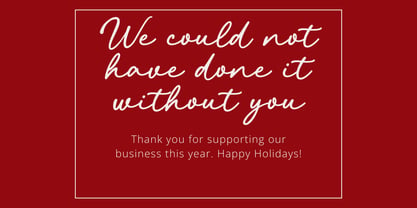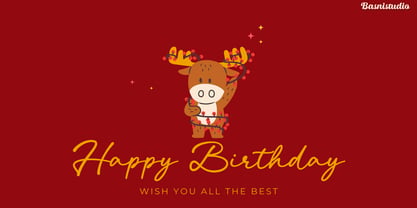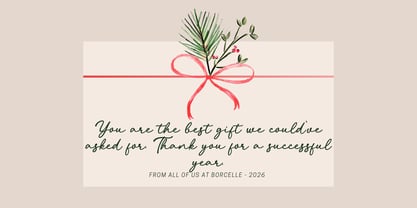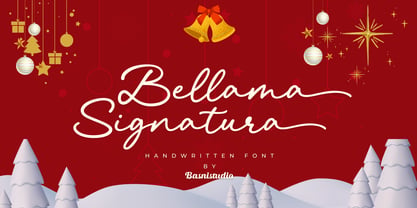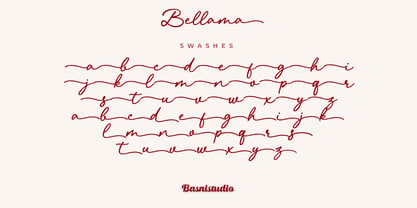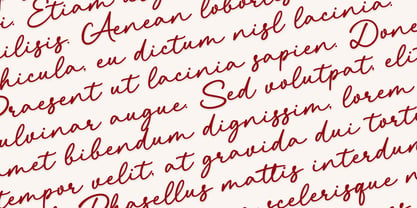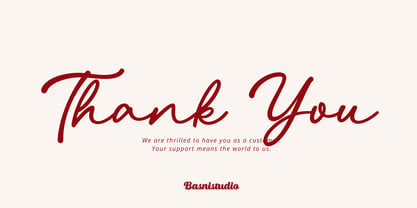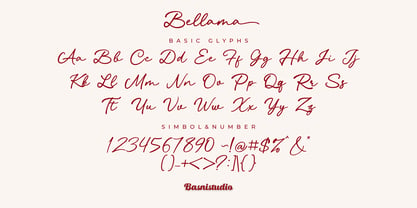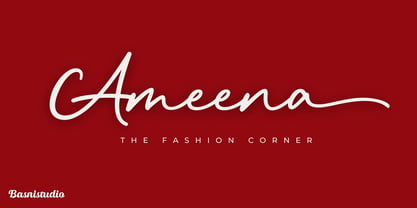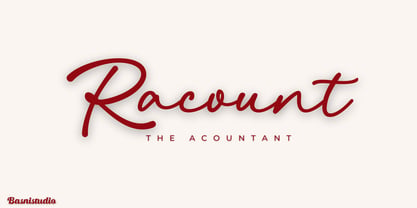
Bellama Signature
The Bellama Signature Font Family was designed by Bery Arisandi and published by Basnistudio. Bellama Signature contains 1 styles. More about this family
Bellama a Signature Font that adds a elegant, versatile touch to everything from branding and social media to invitations and packaging. Elegant & Versatile – Perfect for logos, quotes, greeting cards, and more Authentic Handwritten Feel – Created with real pen strokes for a natural look Easy to Use – Works seamlessly with all major design programs Whether you’re building a powerful brand identity or crafting a standout logo, Bellama a Signature Font gives you the creative edge you need. What’s Included: Uppercase & lowercase letters Ligature Numbers & punctuation Swashes Multilingual Support If you have any questions please don’t hesitate to contact me. Thank You Very Much